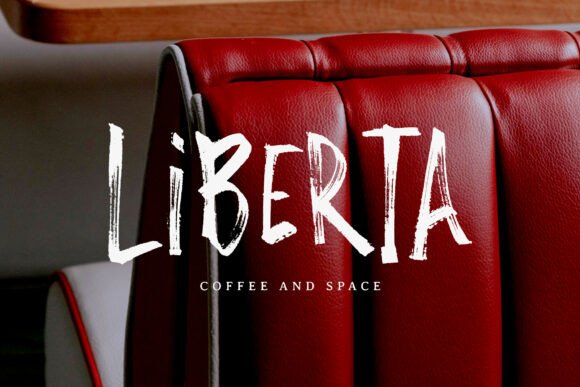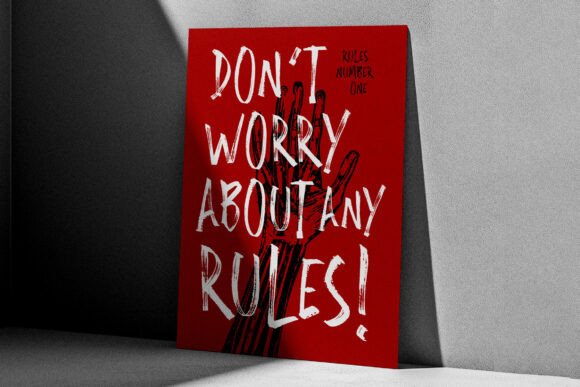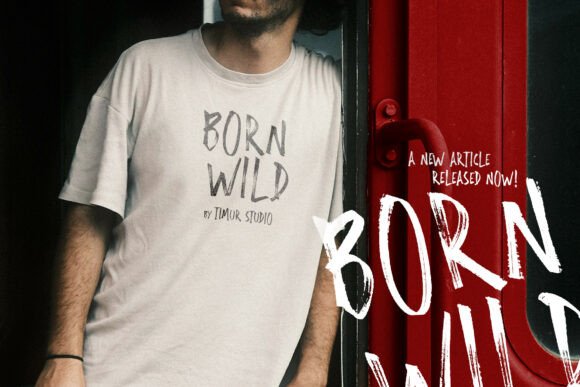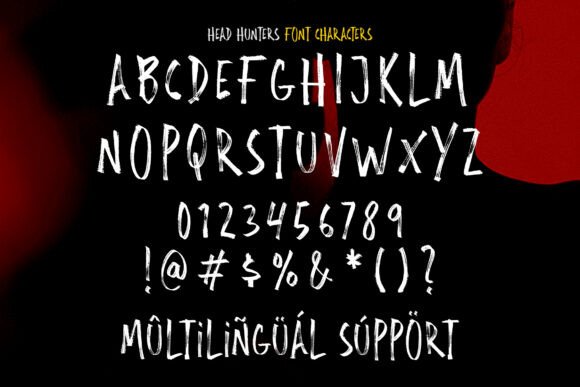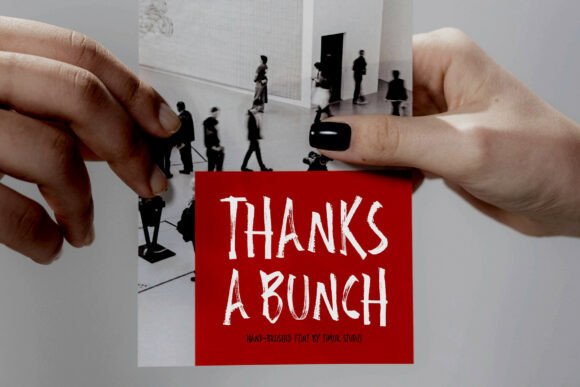
Introduction to Head Hunters Font
As a designer, there’s nothing quite like the thrill of bringing a creative project to life. The rush of ideas, the experimentation with different styles, and the satisfaction of seeing it all come together – it’s a feeling that’s hard to match. And for those moments when you need to make a statement, to grab attention, and to leave a lasting impression, there’s one font that stands out from the rest: the Head Hunters Font.
This bold, hand-brushed font is more than just a design element – it’s an attitude, a personality, and a statement. With its uneven strokes, rough edges, and dramatic angles, it’s the perfect choice for designers who want to add a little edge to their work. Whether you’re creating a music poster, an action-themed brand, or an urban fashion campaign, the Head Hunters Font is sure to deliver.
As a valuable resource for designers, the Head Hunters Font offers a high-quality, free download option with a transparent background – making it easy to integrate into any design project. Its expressive, textured, and artistic look is sure to elevate any visual statement, and its bold, edgy vibe is perfect for designs that demand attention and attitude.
Key Features of Head Hunters Font
- High-quality design resource with a unique, bold style suitable for creative projects.
- Comes with a transparent background, making it easy to incorporate into various design elements.
- Features a large character set with extended Latin support, ideal for multinational creative projects.
- Available in 6 different font sizes, ranging from 48px to 192px, for versatility in design applications.
- Designed at 300 DPI resolution for crisp, high-quality rendering in both print and digital formats.
Honest Review: Head Hunters Font
I recently came across the Head Hunters Font and was excited to give it a try in my next creative project. As a designer, I’m always on the lookout for high-quality design resources that can elevate my work and save me time.
- ✨ The font has a transparent background, which makes it easy to use on any background color or texture.
- ✨ The font is highly customizable, with a wide range of styles and sizes to choose from.
- ✨ The font is perfect for use in headings, titles, and other bold typography.
- ⚠️ The font is not suitable for use in body text, as it can be difficult to read at small sizes.
- ⚠️ The font may not be suitable for use in print materials, as it can be difficult to reproduce at high resolutions.
Overall, I’m really impressed with the Head Hunters Font. It’s a great addition to my design toolkit, and I’m excited to use it in my next creative project.
Tips for Getting the Most Out of Head Hunters Font
Use the font in combination with a transparent background to create a modern and sleek design. Experiment with different font sizes and styles to create visual interest. Also, use the font in conjunction with other design elements, such as shapes and graphics, to create a cohesive and engaging design.
The Head Hunters Font is suitable for a variety of creative projects, including logos, business cards, brochures, and social media graphics. Its high-quality design and transparent background make it an ideal choice for modern and sleek designs.
Q: Is the Head Hunters Font suitable for print and digital use?
Yes, the Head Hunters Font is designed to be versatile and suitable for both print and digital use. The transparent background ensures seamless integration into your design, while the high-quality design makes it perfect for various creative projects, including logos, branding materials, and digital advertisements.